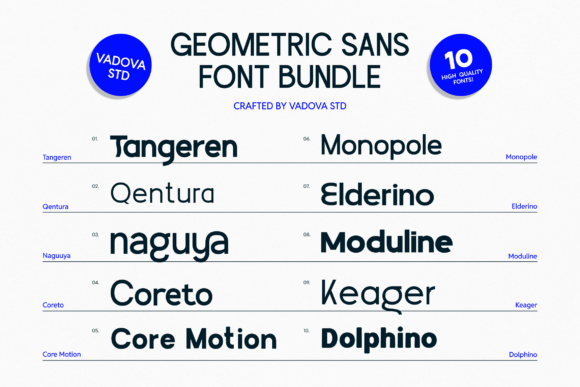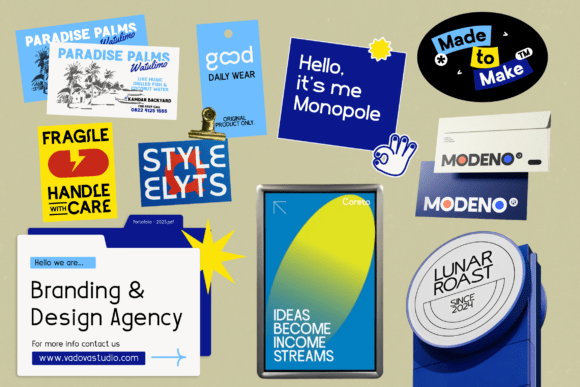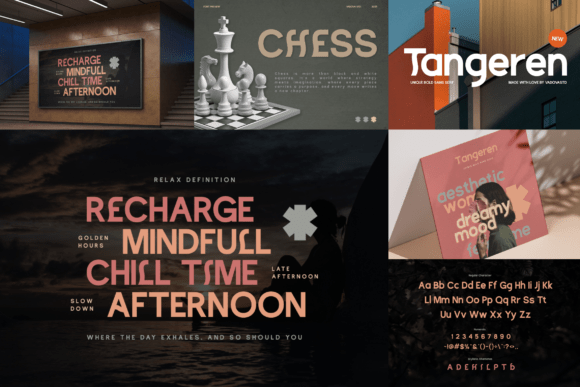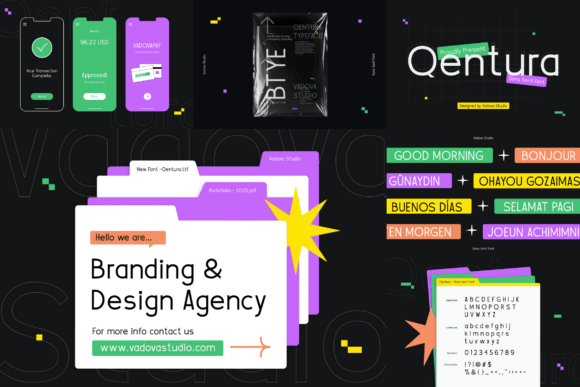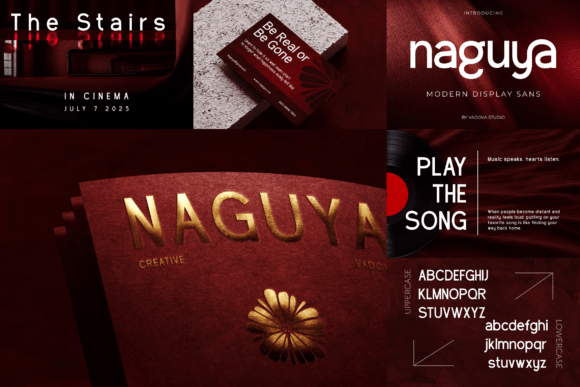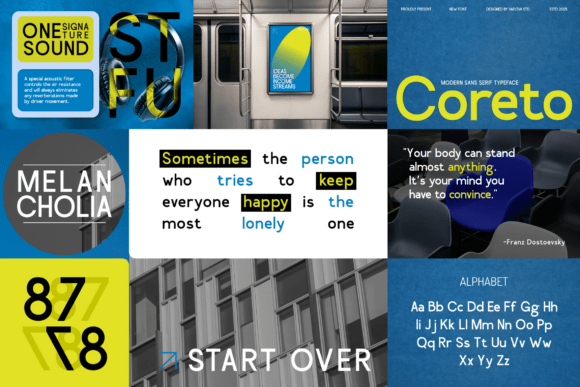
Unlock Modern Design with the Geometric Sans Bundle Font
In the world of typography, a well-crafted font can elevate a design from ordinary to extraordinary. For designers and crafters seeking a modern, versatile, and professional look, the Geometric Sans Font Bundle stands out as an exceptional choice. This comprehensive collection of clean, structured typefaces is engineered for clarity, adaptability, and a contemporary visual impact that resonates across various design projects.
What is the Geometric Sans Font Bundle?
The Geometric Sans Font Bundle is a thoughtfully curated assortment of typefaces built on geometric foundations, characterized by balanced proportions, clean lines, and minimal details. This bundle is designed to deliver a timeless and professional aesthetic suitable for a broad spectrum of design applications, from digital interfaces and modern identities to print materials such as posters, packaging, and editorial layouts.
Key Features of Geometric Sans Fonts
- Clean Lines and Minimal Details: Each font in the bundle boasts uncluttered lines and sparse embellishments, ensuring that the message is conveyed clearly and effectively.
- Strong Readability: Whether used for display purposes or in body text, these typefaces maintain high readability, making them perfect for both headlines and extended content.
- Versatility: The geometric sans fonts are incredibly versatile, capable of supporting a wide range of design projects, including branding, UI/UX design, web layouts, and promotional materials.
- Contemporary Visual Impact: With their sleek and structured appearance, these fonts contribute to creating visuals that feel modern, confident, and meticulously crafted.
Applications of the Geometric Sans Font Bundle
The Geometric Sans Font Bundle’s adaptability makes it an invaluable resource for various design needs:
- Branding and Identities: Establish a strong and contemporary brand presence with a typeface that communicates professionalism and modernity.
- Digital Interfaces: Enhance user experiences with clean, legible fonts that perform well across different devices and screen sizes.
- Print Materials: Elevate print designs, such as posters, flyers, and packaging, with a crisp and visually appealing typography.
- Editorial Layouts: Bring a touch of modern sophistication to magazines, newspapers, and digital publications.
Why Choose the Geometric Sans Font Bundle?
For designers and crafters looking for a reliable typographic foundation that aligns with contemporary design trends, the Geometric Sans Font Bundle offers:
- Time-Saving: A comprehensive collection of typefaces in one bundle reduces the need to search for individual fonts, saving time and effort.
- Consistency: Using a unified font family across different projects and platforms helps maintain a consistent visual identity.
- Flexibility: With a range of styles and weights, designers can adapt the fonts to suit various design requirements and personal preferences.
The Geometric Sans Font Bundle is a powerful tool for designers and crafters aiming to infuse their projects with a modern, clean, and professional aesthetic. By integrating geometric precision with typographic excellence, this bundle offers a versatile and reliable solution for a multitude of design applications. Whether you’re building a brand, designing digital interfaces, or creating promotional materials, the Geometric Sans Font Bundle provides the typographic foundation needed to achieve a sleek, confident, and well-crafted visual presence.
Embrace the potential of geometric sans fonts to transform your designs and elevate your creative projects to new heights of visual sophistication and impact.